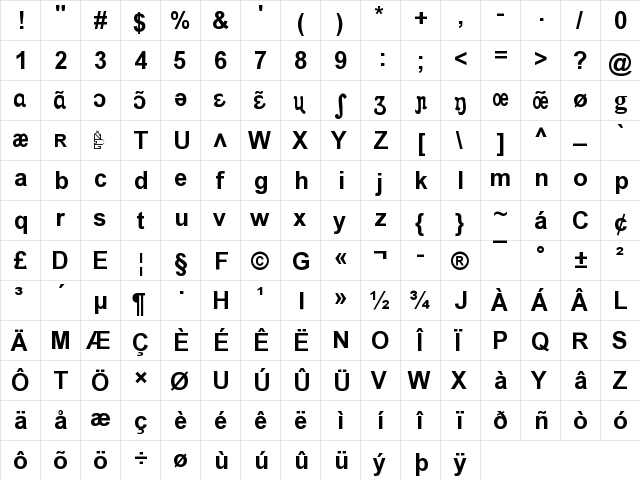
apicar Bold Font Preview
apicar Bold
apicar Bold Font Details
Design Context for apicar Typeface
apicar offers clean, dependable letterforms without strong stylistic allegiance, making it a practical choice for designers who need flexibility. Its bold stroke weight gives it real presence on the page.